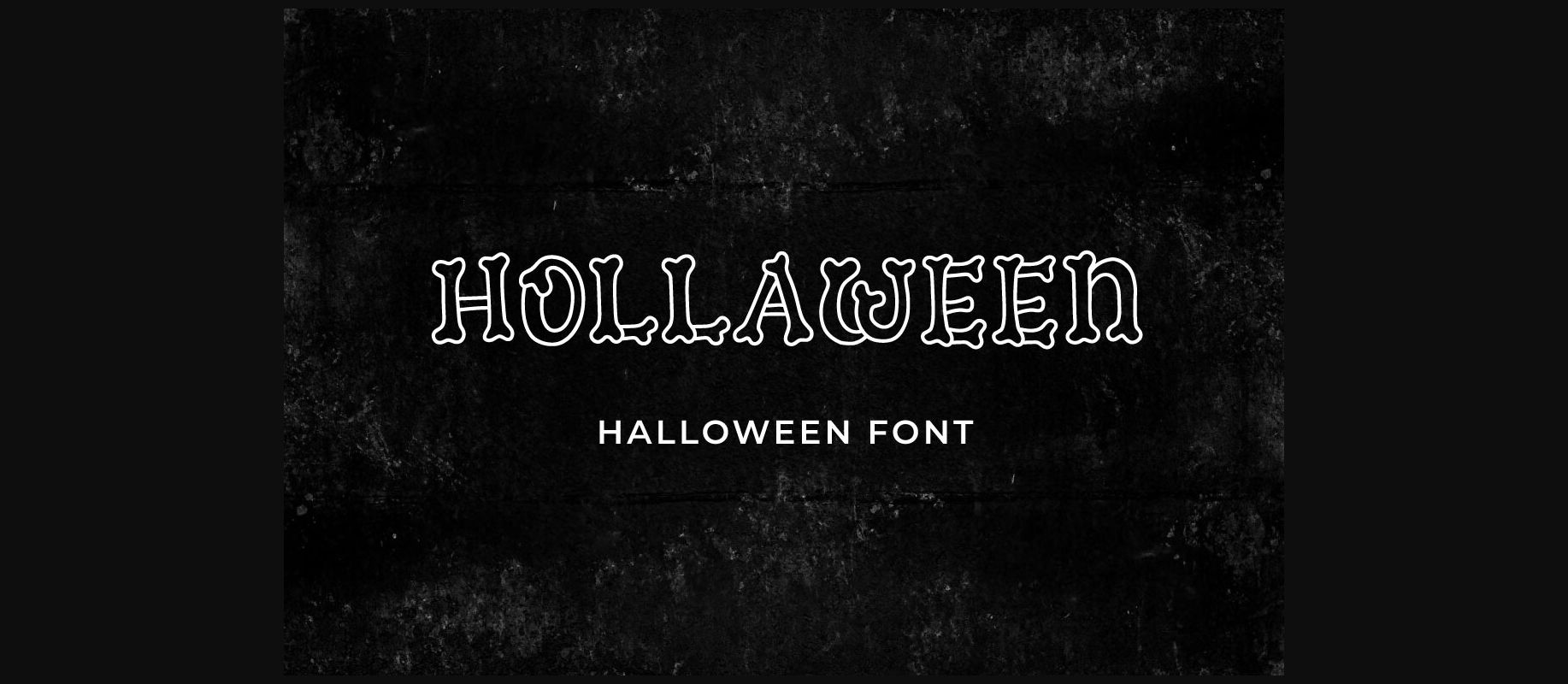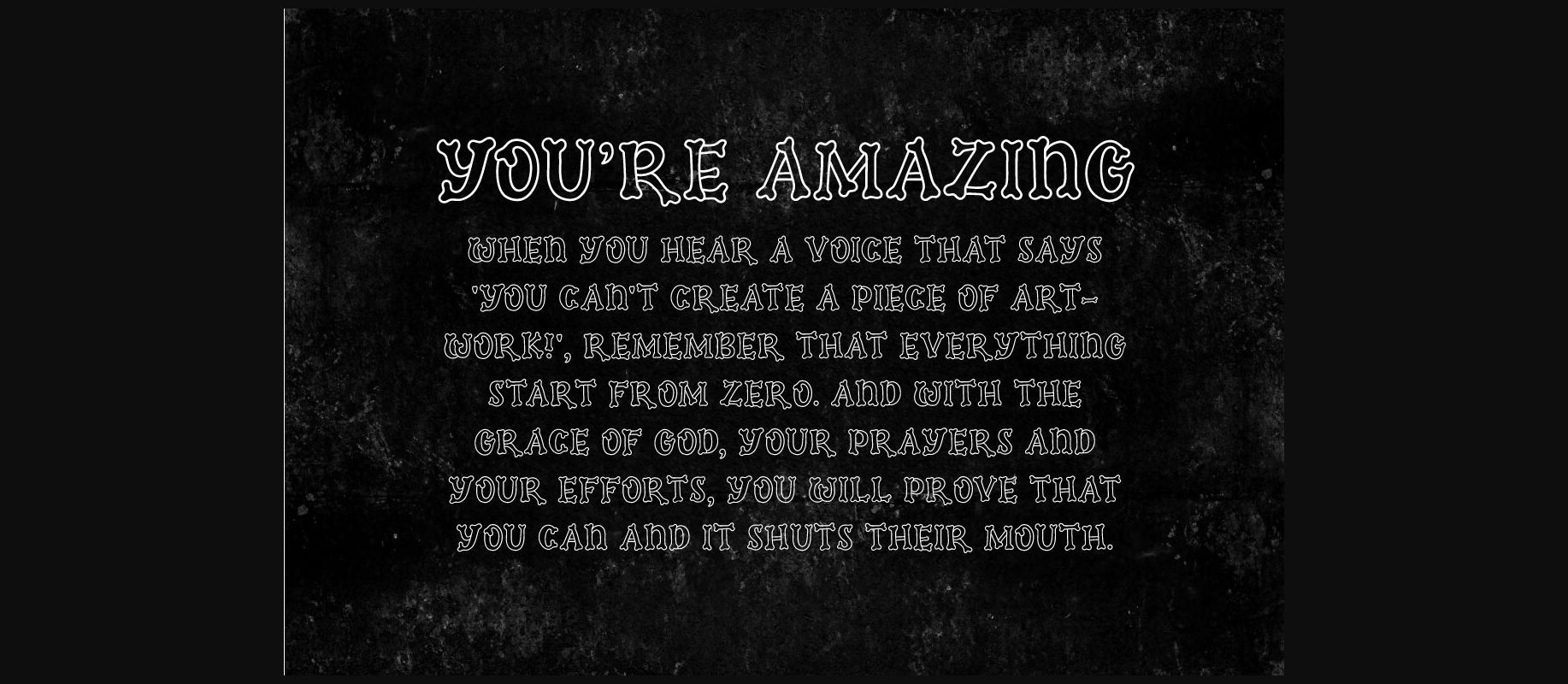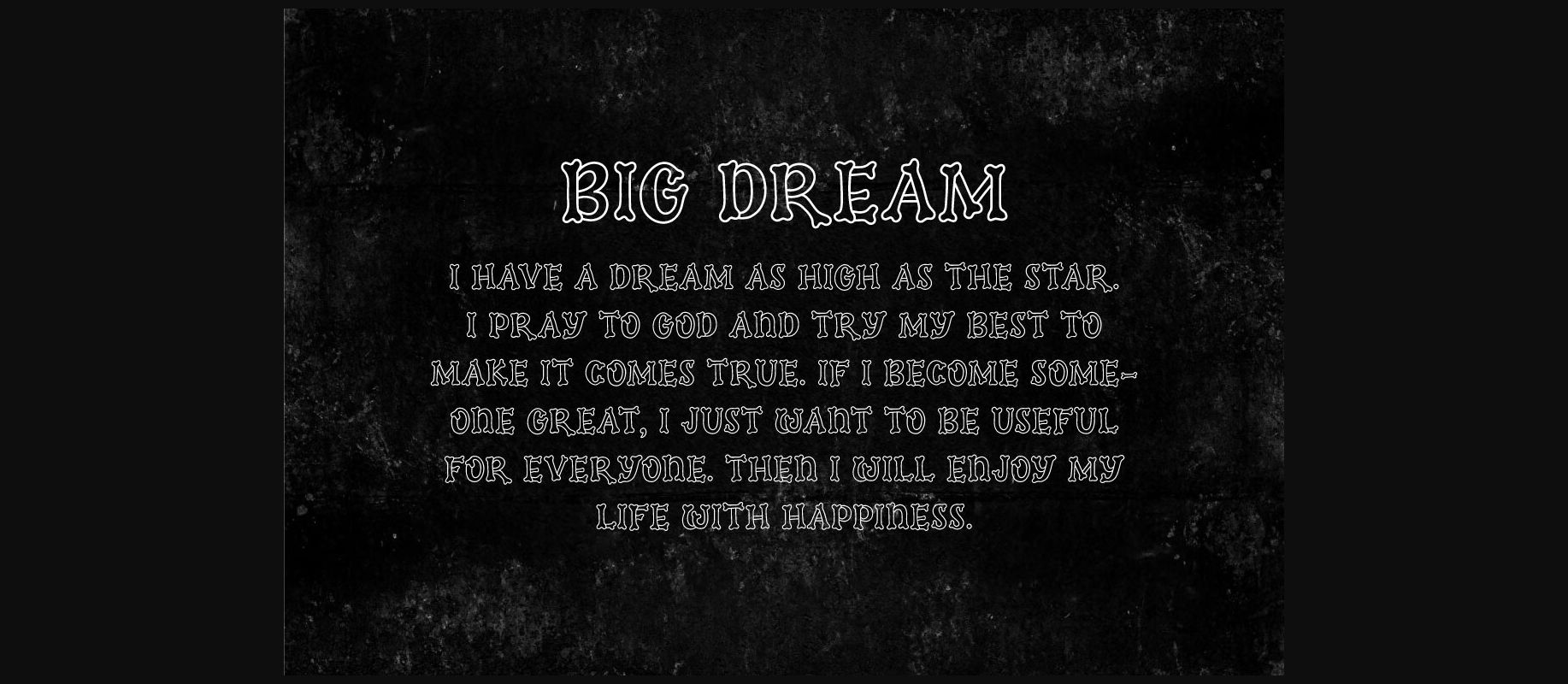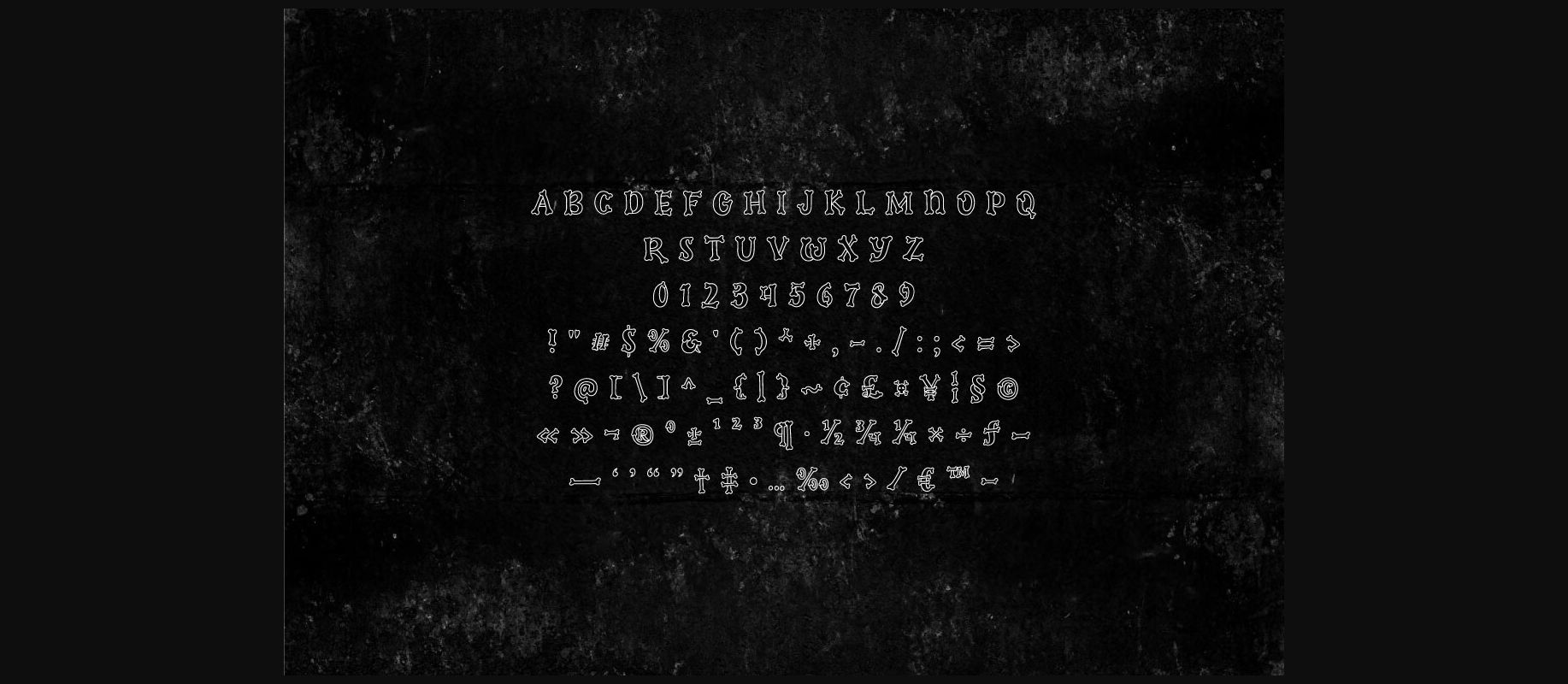
Hollaween Font
About Hollaween Font
Halloween font is a spooktacular typeface that embodies the spirit of the season. Its letters are creatively shaped like bones, adding a macabre and playful touch to your Halloween-themed designs. Whether you’re designing party invitations, haunted house flyers, or eerie social media posts, Halloween font is the perfect choice to give your text a bone-chilling and festive look.